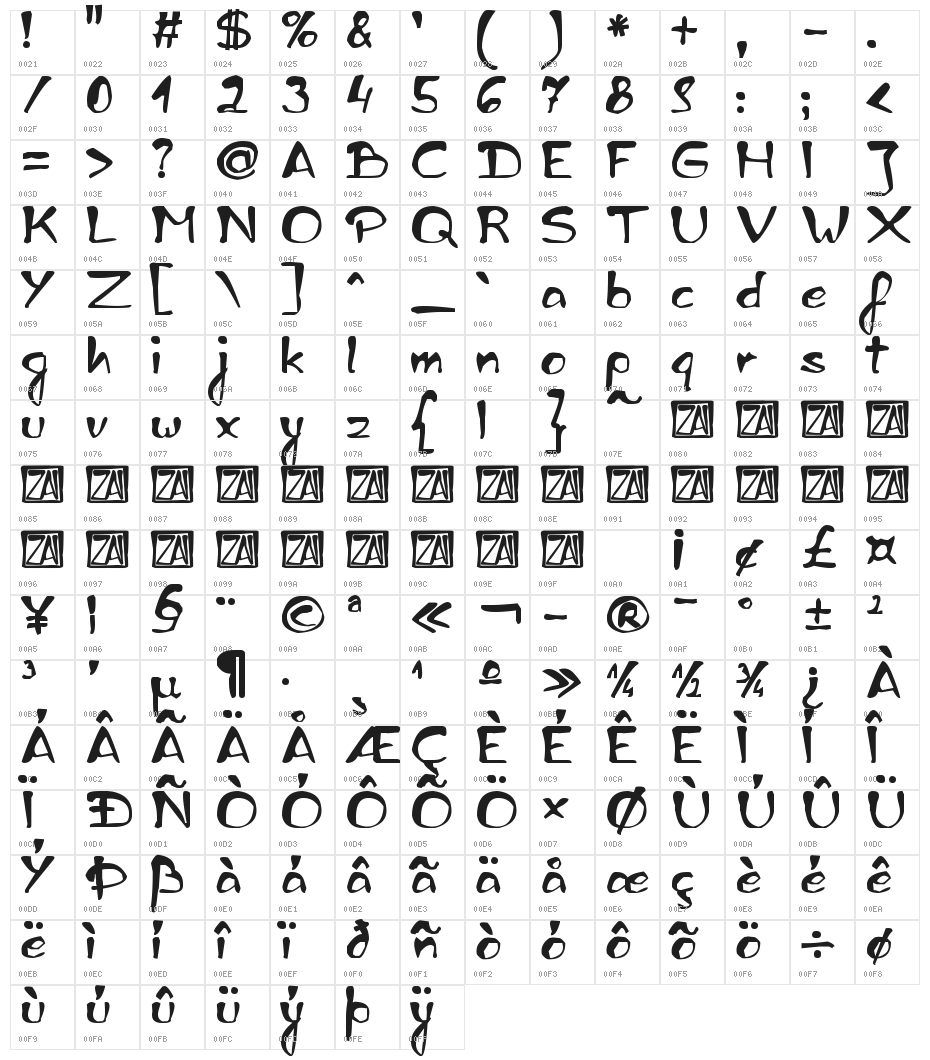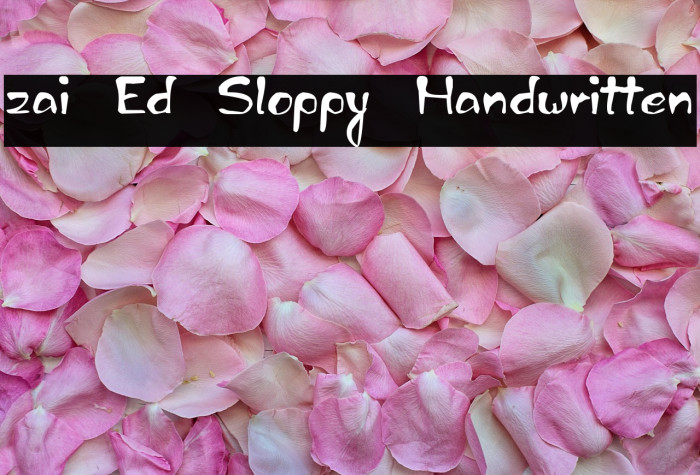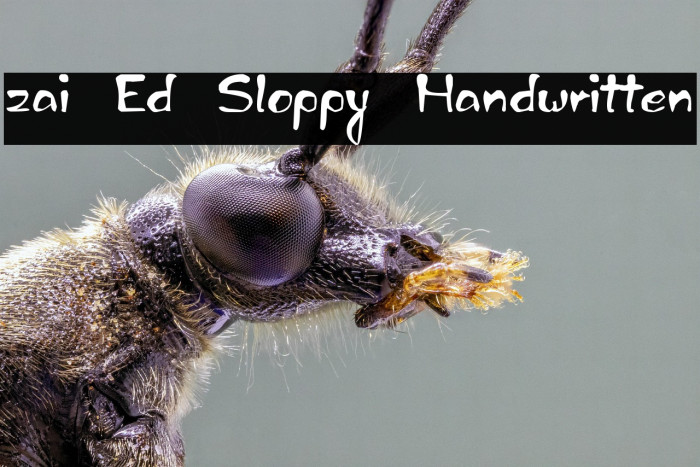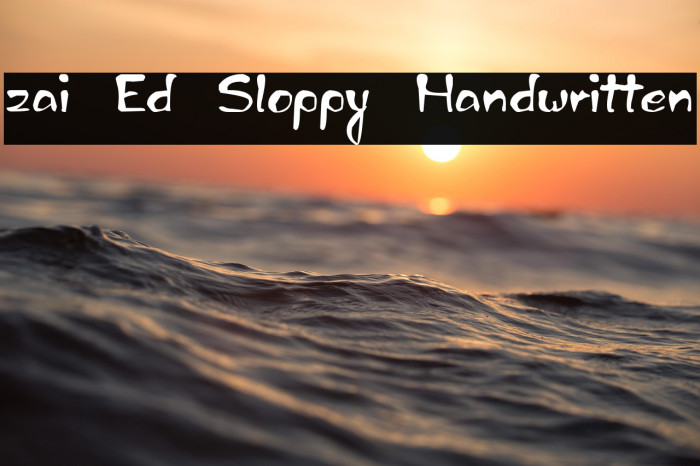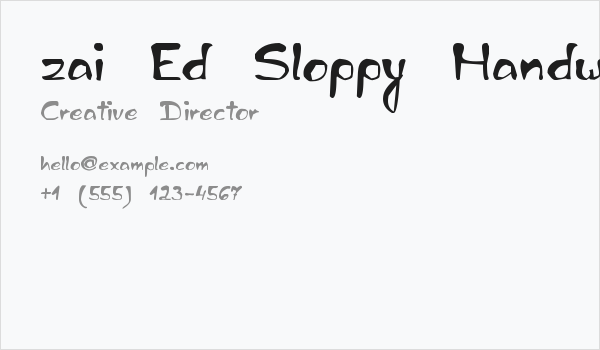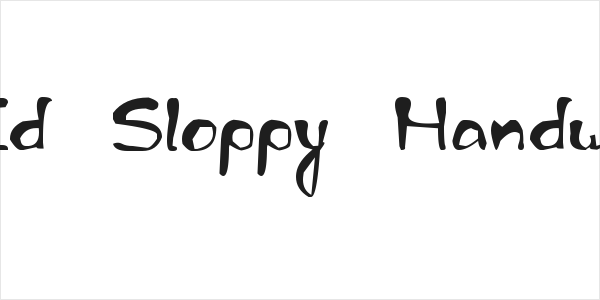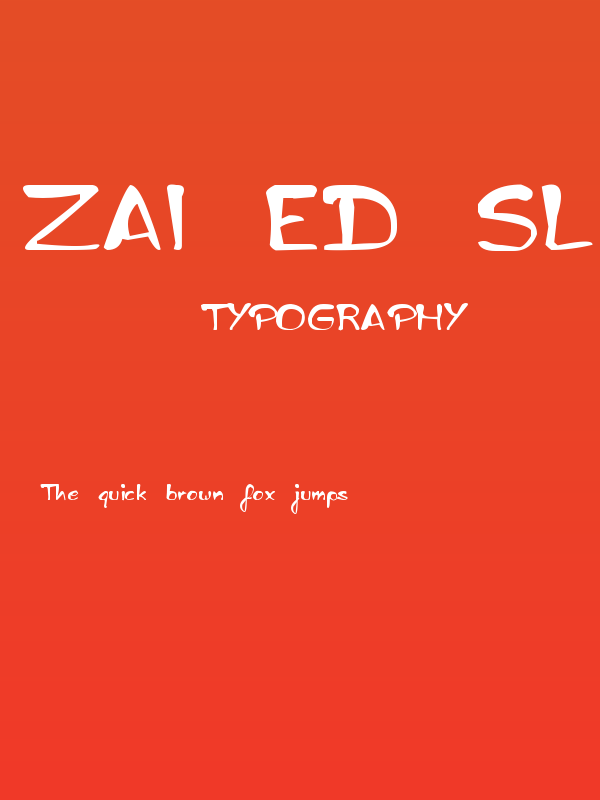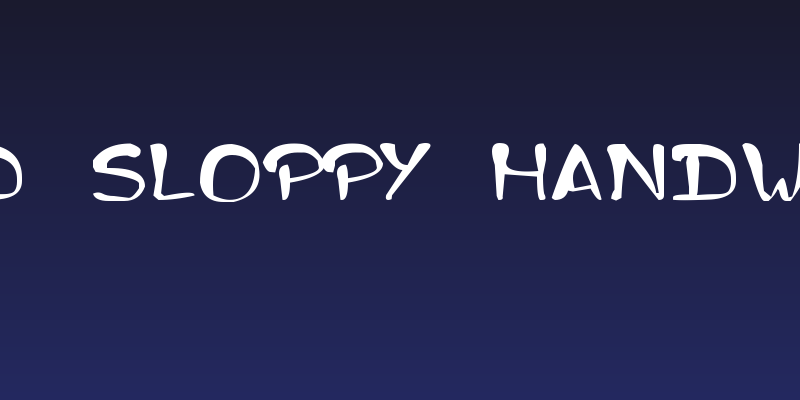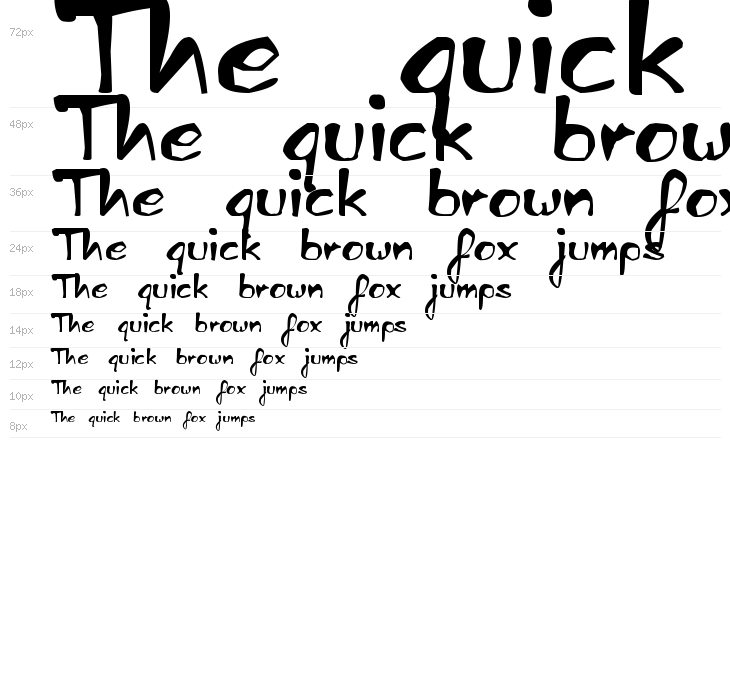
zai Ed Sloppy Handwritten Font
zai Ed Sloppy Handwritten Description
This font exudes a playful and casual vibe, characterized by its handwritten style that mimics the natural flow of penmanship. The letters are uneven, with varying stroke thicknesses that add a dynamic and lively feel. The uppercase and lowercase letters maintain a consistent style, with a slightly exaggerated flair on certain characters, giving it a whimsical touch. The numbers and special characters follow the same informal style, making the font versatile for creative projects. Its organic and spontaneous appearance makes it ideal for designs that aim to convey a personal or informal tone.
| Proposed Projects | Ideal for greeting cards, personal blogs, children's books, and creative branding. |